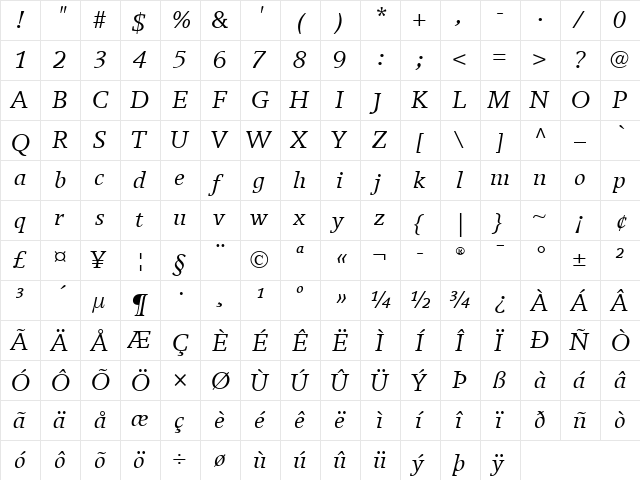
Breughel LT Regular Italic
Design Context for Breughel LT Regular Typeface
Breughel LT Regular is a composed and adaptable typeface that performs quietly and consistently across a wide range of design contexts. The slanted form adds forward momentum and visual energy. Its slender proportions lend an understated elegance to any composition.